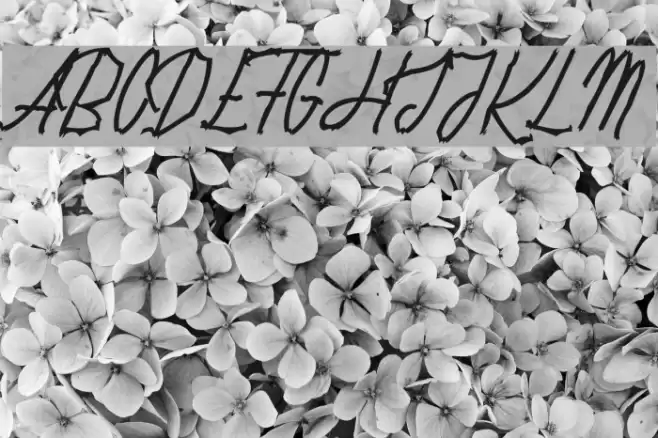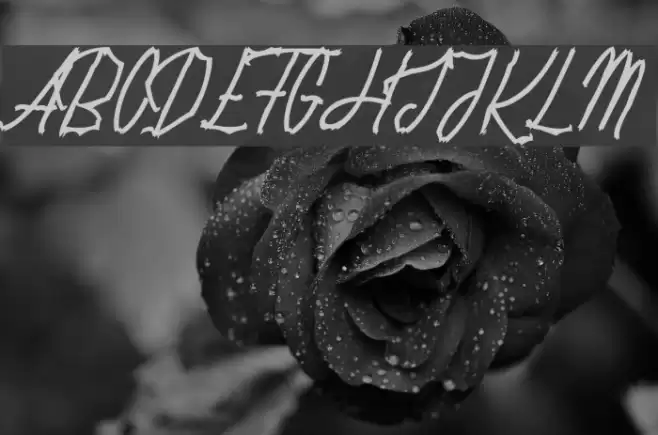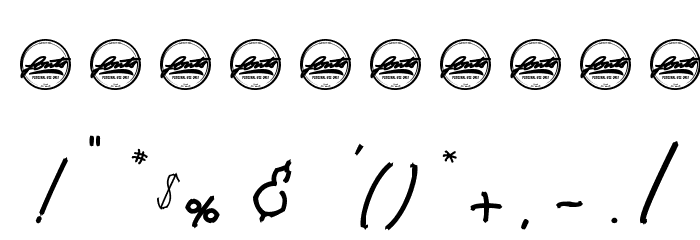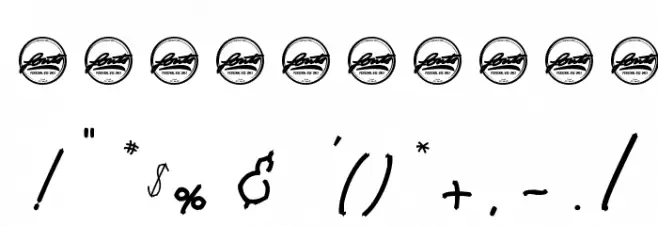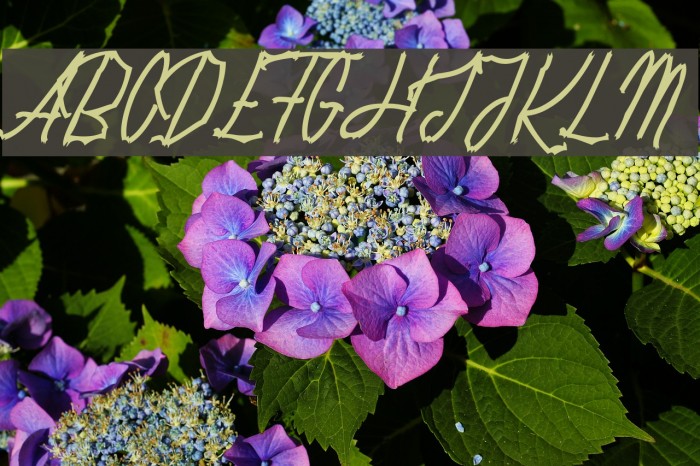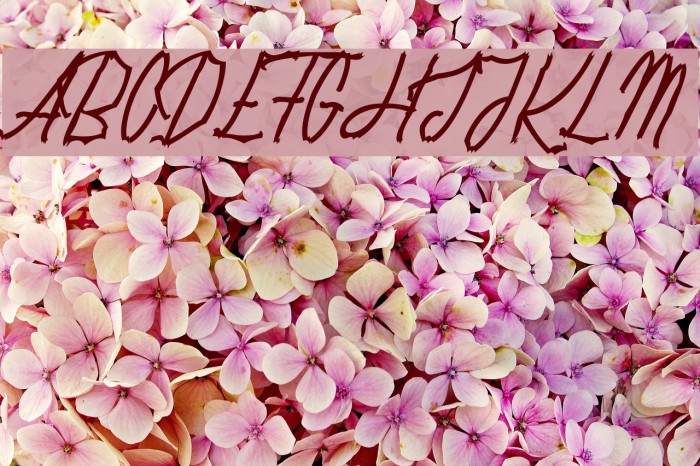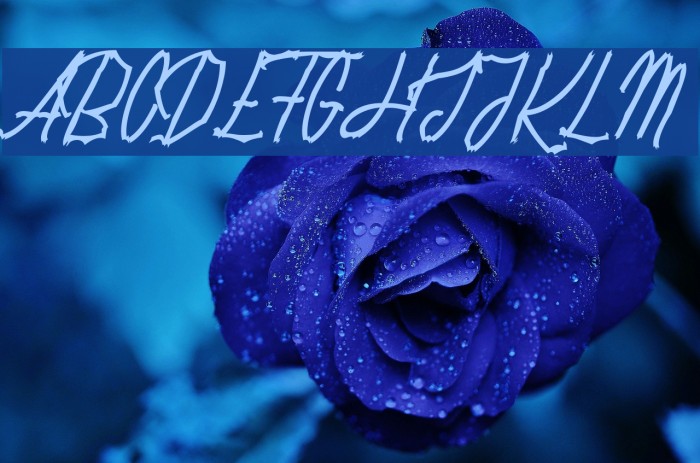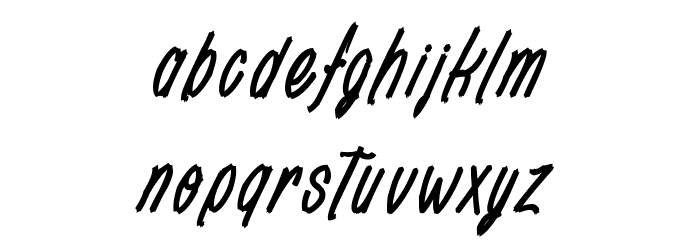
Rotten Pumkin_PersonalUseOnly Font
Rotten Pumkin_PersonalUseOnly Description
This font features a unique, hand-drawn style with an edgy and slightly chaotic appearance. The letters are elongated and have a jagged, irregular quality, reminiscent of a spooky or Halloween theme. The uppercase and lowercase letters maintain a consistent style, with sharp angles and uneven lines that give the font a dynamic and energetic feel. The numbers and special characters follow the same aesthetic, adding to the overall cohesive look. This font is ideal for projects that require a bold, distinctive look with a touch of whimsy and playfulness.
A jagged, hand-drawn font with a spooky, energetic style from Uncategorized fonts.
- Proposed Projects: Halloween invitations, horror-themed posters, edgy branding, creative art projects.